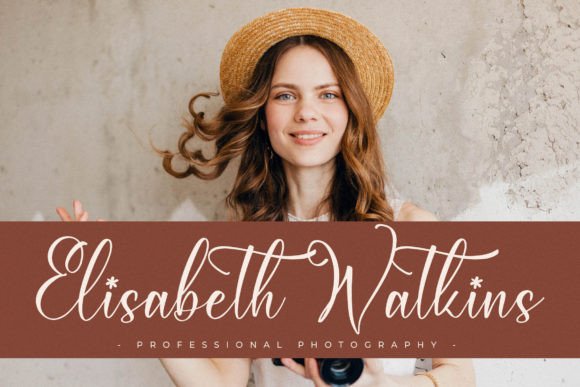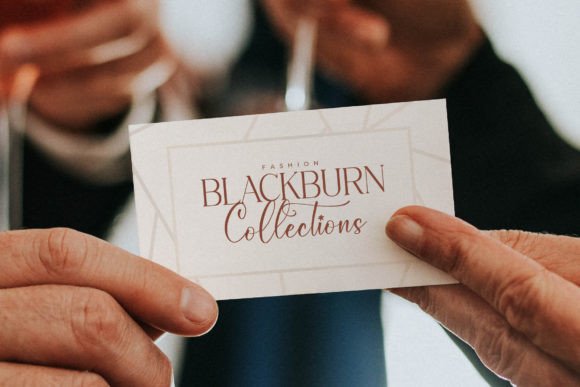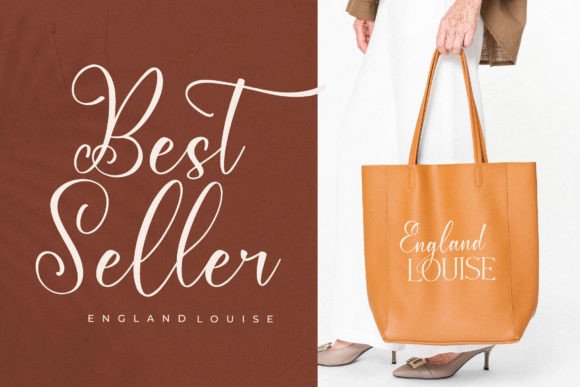
Introduction to Qerginas Frenchstyle Font
As a designer, there’s nothing quite like the thrill of stumbling upon the perfect font for a creative project. It’s that moment when the entire design starts to come together, and you can’t help but feel a sense of excitement and pride. For those looking to add a touch of elegance and sophistication to their next design, we’re excited to introduce the Qerginas Frenchstyle Font Duo.
This high-quality font is a game-changer for designers, offering a unique blend of modern style and classic charm. With its transparent background and PUA encoded features, it’s incredibly easy to access and use, making it the perfect addition to any design resource. Whether you’re working on a luxury logo, a fashion brand, or a magazine, the Qerginas Frenchstyle Font is sure to elevate your design to the next level.
Key Features of Qerginas Frenchstyle Font
- High-quality design resource ideal for creative projects, offering a unique touch to your work.
- Features a transparent background, allowing for seamless integration into any design project.
- Designed with a classic French flair, making it perfect for projects that require a touch of elegance and sophistication.
- Perfect for designers, artists, and creatives looking for a unique and high-quality font to elevate their projects.
Honest Review: Qerginas Frenchstyle Font
I recently stumbled upon the Qerginas Frenchstyle Font, and I must say it’s been a delightful addition to my design resource library. The high quality of this font is immediately apparent, making it perfect for any creative project that demands a touch of elegance.
One of the standout features of this font is its versatility. It works beautifully for both digital and print applications, and its transparent background allows for seamless integration into any design.
Here are some of the things that work well:
- Beautifully crafted lettering that exudes a sense of sophistication
- Highly customizable, allowing for a range of styling options
While the Qerginas Frenchstyle Font is an excellent addition to any design library, there are a few limitations to be aware of:
- It may not be suitable for very small text sizes, as the details can get lost
- Some users may find the font’s classic style to be a bit too traditional
Overall, I’m thoroughly impressed with the Qerginas Frenchstyle Font. Its high quality, versatility, and affordability make it a must-have for any designer looking to add a touch of French flair to their creative project.
Tips for Getting the Most Out of Qerginas Frenchstyle Font
Use the Qerginas Frenchstyle Font as a design resource for your creative project. Experiment with different font sizes, colors, and arrangements to achieve a unique look. This high-quality font is perfect for creating eye-catching headings and titles.
The Qerginas Frenchstyle Font is ideal for various creative projects, such as invitations, brochures, and social media graphics. Its elegant design makes it a great addition to any design, and with a free download available, it’s an accessible design resource for anyone.